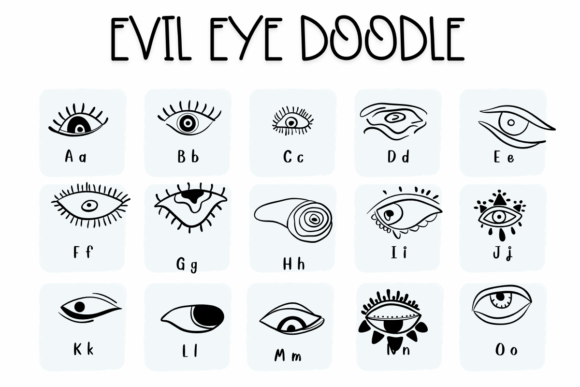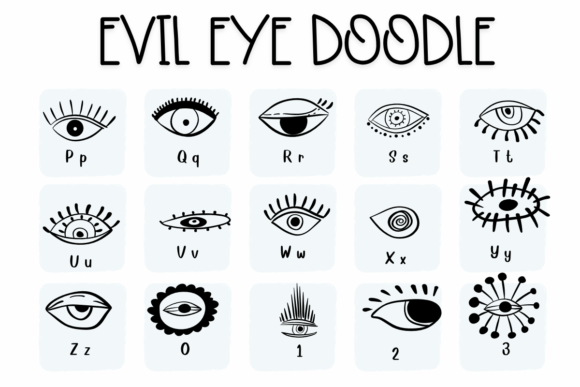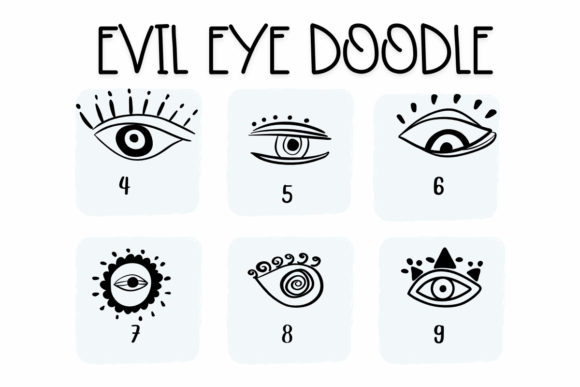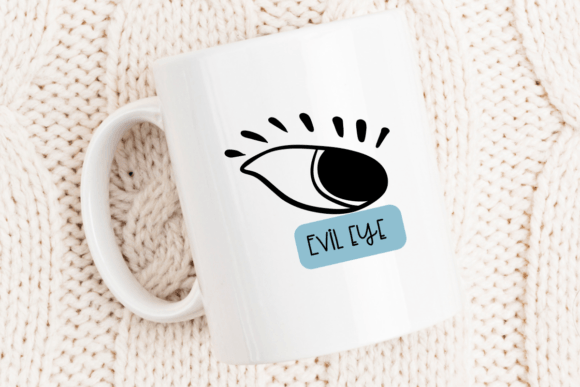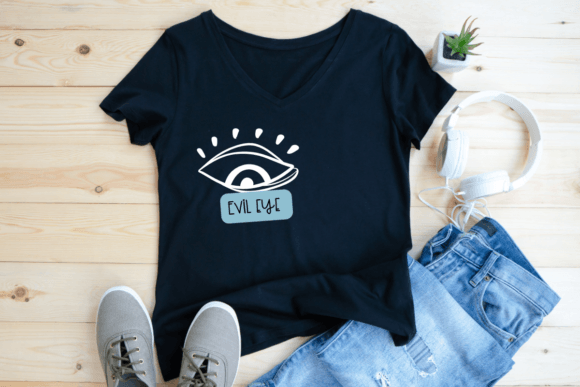
Evil Eye Doodle Font: Add a Touch of Mystical Charm to Your Designs
Are you looking for a unique and creative way to add a touch of mystical charm to your designs? Look no further than the Evil Eye Doodle Font. This playful dingbat font is filled with images of the evil eye symbol, each one carefully crafted to bring a sense of whimsy and wonder to your projects.
What is the Evil Eye Symbol?
The evil eye symbol, also known as the Nazar, is an ancient talisman believed to protect against evil spirits and negative energy. It is a popular motif in many cultures, including Mediterranean, Middle Eastern, and Asian traditions. The symbol typically features a blue eye with a white iris and a black pupil, surrounded by a circle or other decorative elements.
Features of the Evil Eye Doodle Font
The Evil Eye Doodle Font is a one-of-a-kind dingbat font that features a wide range of evil eye designs. Each character in the font displays a unique and creative evil eye design, perfect for adding a touch of mystical charm to your projects. Here are some of the key features of this amazing font:
- Unique and creative designs: Each character in the font features a unique and creative evil eye design, carefully crafted to bring a sense of whimsy and wonder to your projects.
- Playful and mystical: The Evil Eye Doodle Font is perfect for designers and crafters who want to add a touch of mystical charm to their projects. The font is playful, fun, and full of personality.
- Versatile: The font can be used for a wide range of projects, including greeting cards, invitations, posters, and more.
Ideas for Using the Evil Eye Doodle Font
The Evil Eye Doodle Font is a versatile font that can be used for a wide range of projects. Here are some ideas to get you started:
- Greeting cards: Use the Evil Eye Doodle Font to create unique and personalized greeting cards for special occasions, such as birthdays, weddings, and holidays.
- Invitations: Use the font to create eye-catching invitations for parties, events, and other gatherings.
- Posters: Use the font to create bold and eye-catching posters for businesses, events, and causes.
- Social media graphics: Use the font to create engaging and shareable social media graphics, such as Facebook posts, Instagram stories, and Twitter headers.
- Crafting projects: Use the font to add a touch of mystical charm to your crafting projects, such as scrapbooking, journaling, and card making.
The Evil Eye Doodle Font is a unique and creative font that is perfect for designers and crafters who want to add a touch of mystical charm to their projects. With its playful and whimsical designs, this font is sure to bring a sense of wonder and magic to your designs. Whether you’re creating greeting cards, invitations, posters, or social media graphics, the Evil Eye Doodle Font is a great choice. So why wait? Download the Evil Eye Doodle Font today and start adding a touch of mystical charm to your designs!